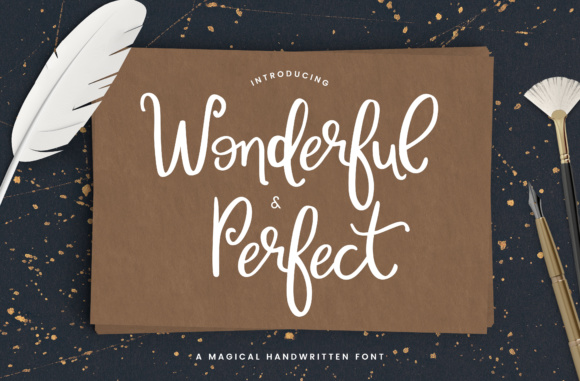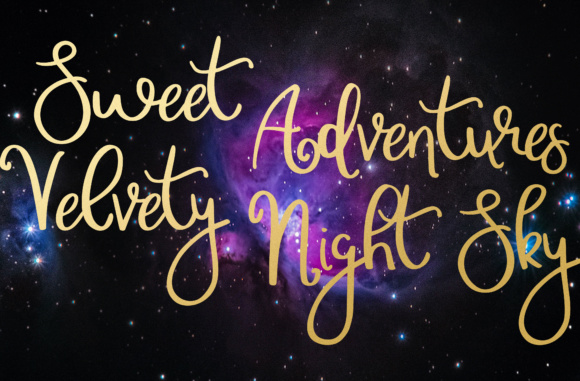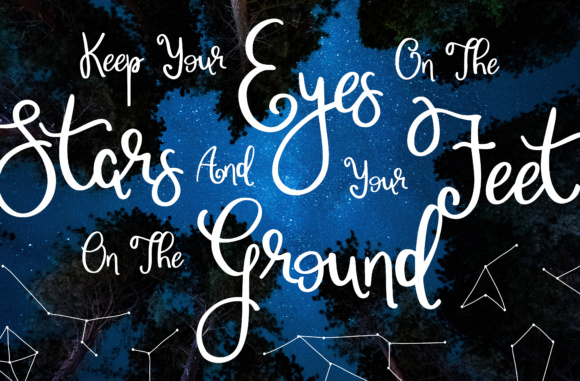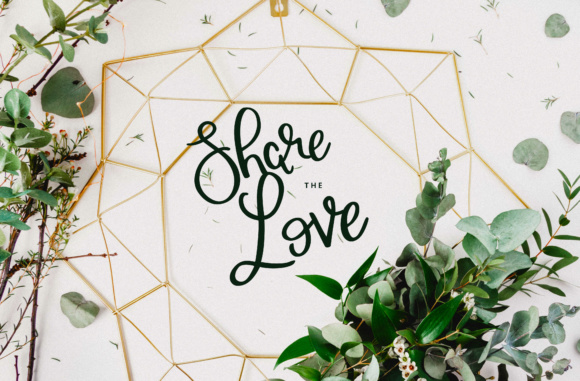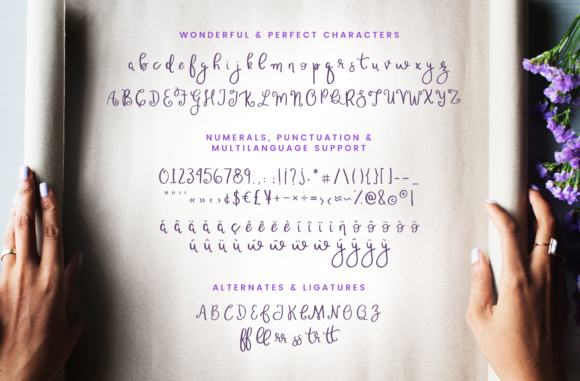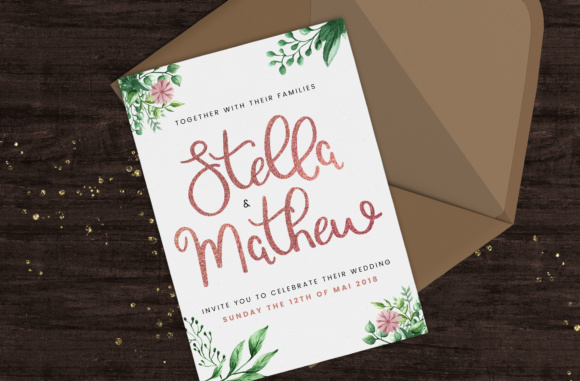
Wonderful & Perfect Font
About Wonderful & Perfect Font
Wonderful & Perfect is a whimsical, bouncy font for any of your design needs! It has a fun, quirky style that will add elegance to your work.